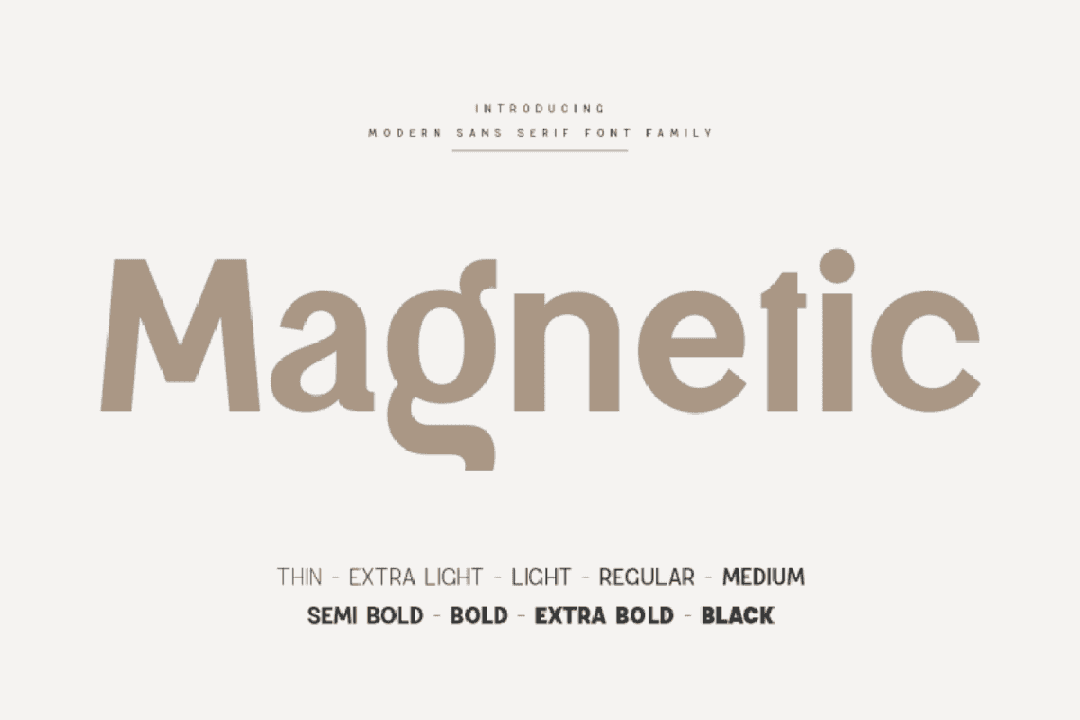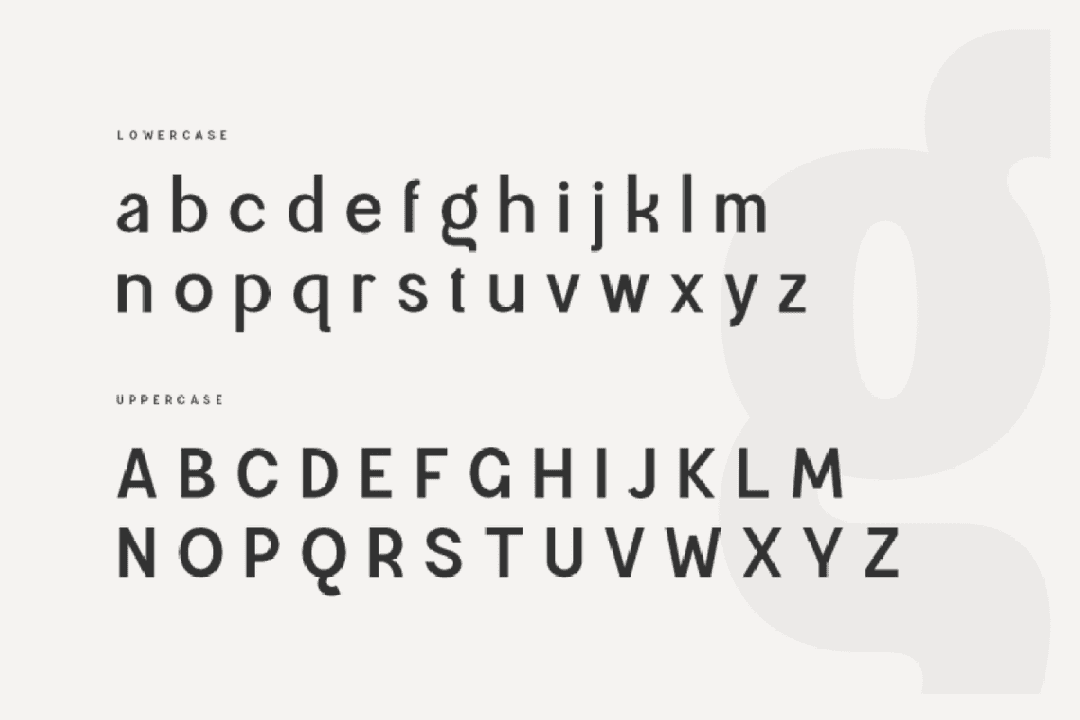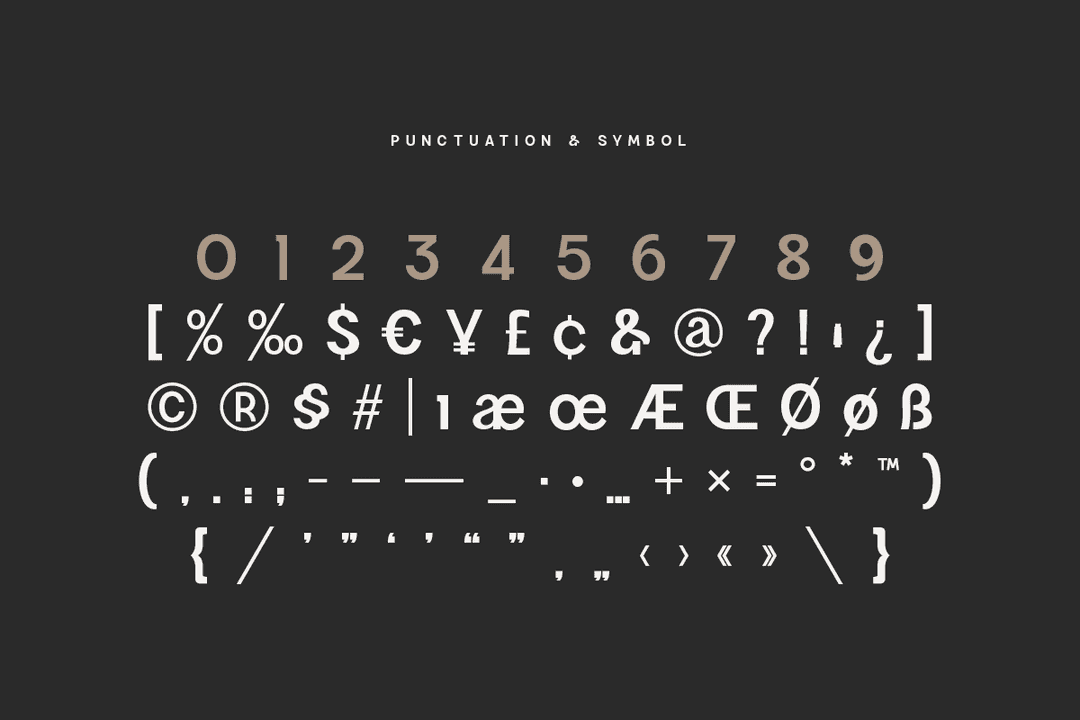
Magnetic is a sans serif font that has a modern, corporate, elegant, unique and classy look about it. This font crafted specials for logo design projects, perfect for use on Logo, Branding, Magazine, Social Media, and Many more that requires a modern style.